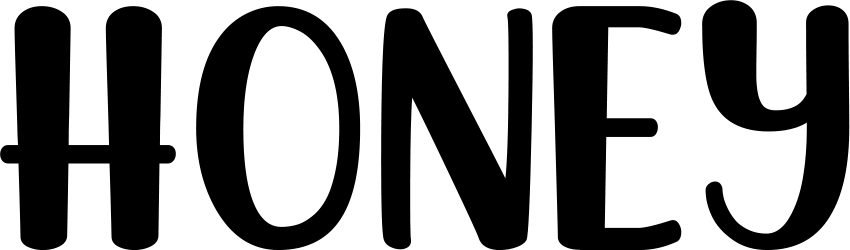
Honey Font
This honey font fits the bill if you crave a cartoon font for your text layout. Honey looks stunning for children’s programs, comic books, snacks, and so on. It brings a delightful and joyous vibe to your text design, bu…
This honey font fits the bill if you crave a cartoon font for your text layout. Honey looks stunning for children’s programs, comic books, snacks, and so on. It brings a delightful and joyous vibe to your text design, but remember it doesn’t include lowercase letters. To get more of this collection, dive deeper into our ever-growing library.